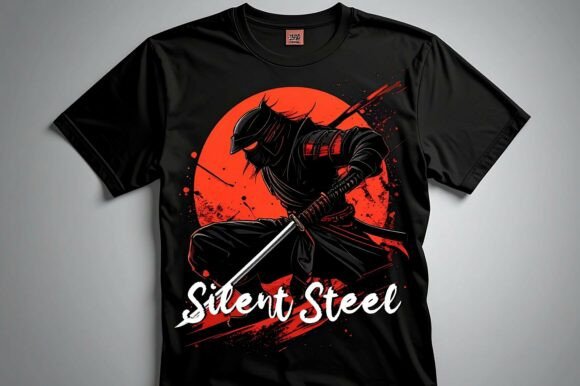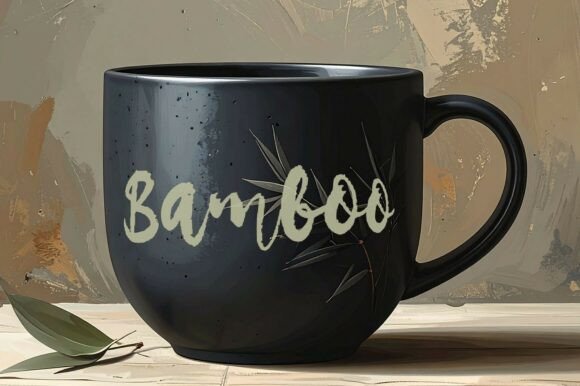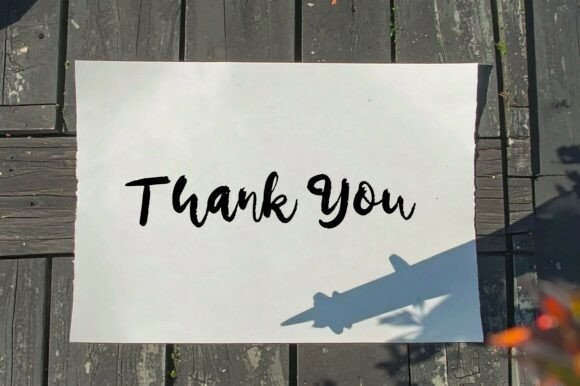
Unleash Your Creativity with Bayangan Pendekar Font
Are you looking for a font that embodies movement, strength, and a touch of rebellious spirit? Look no further than Bayangan Pendekar, an expressive and dynamic brush script font that is sure to take your designs to the next level. With its bold, energetic strokes and modern edge, this font is perfect for designers and crafters who want to add a powerful visual impact to their work.
The Inspiration Behind Bayangan Pendekar
Bayangan Pendekar is inspired by traditional Asian calligraphy, but with a modern twist. The font’s creator drew inspiration from the bold, expressive strokes of Asian calligraphy and infused it with a modern edge, making it perfect for designs that require a powerful visual impact. The result is a font that is both elegant and edgy, perfect for a wide range of design applications.
Characteristics of Bayangan Pendekar
So, what makes Bayangan Pendekar so special? Here are just a few of its key characteristics:
- Expressive and dynamic: Bayangan Pendekar is a brush script font that is full of movement and energy. Its bold, sweeping strokes are perfect for designs that require a sense of action and intensity.
- Reminiscent of traditional Asian calligraphy: With its bold, expressive strokes, Bayangan Pendekar is reminiscent of traditional Asian calligraphy. However, its modern edge sets it apart from more traditional fonts.
- Perfect for designs that require a powerful visual impact: Whether you’re designing a logo for a martial arts studio, creating graphics for a game, or designing a poster for a concert, Bayangan Pendekar is the perfect font for designs that require a powerful visual impact.
Use Cases for Bayangan Pendekar
So, what can you use Bayangan Pendekar for? The possibilities are endless, but here are a few ideas to get you started:
- Martial arts branding: If you’re designing a logo for a martial arts studio or creating branding materials for a martial arts organization, Bayangan Pendekar is the perfect font. Its bold, energetic strokes evoke a sense of strength and power, making it perfect for martial arts branding.
- Gaming graphics: If you’re creating graphics for a game, Bayangan Pendekar is a great choice. Its bold, dynamic strokes are perfect for creating eye-catching graphics that will grab players’ attention.
- Edgy apparel: If you’re designing apparel for a client who wants an edgy, rebellious look, Bayangan Pendekar is the perfect font. Its bold, expressive strokes are perfect for creating eye-catching designs that will stand out.
- Evocative poster designs: Whether you’re designing a poster for a concert, a movie, or a play, Bayangan Pendekar is a great choice. Its bold, energetic strokes are perfect for creating eye-catching posters that will grab viewers’ attention.
Why Choose Bayangan Pendekar?
So, why should you choose Bayangan Pendekar for your next design project? Here are just a few reasons:
- Adds a fierce and adventurous character to any design: With its bold, energetic strokes, Bayangan Pendekar adds a fierce and adventurous character to any design. Whether you’re designing a logo, creating graphics for a game, or designing a poster, Bayangan Pendekar is sure to make a statement.
- Perfect for designers and crafters who want to create a powerful visual impact: If you’re a designer or crafter who wants to create a powerful visual impact, Bayangan Pendekar is the perfect font. Its bold, expressive strokes are perfect for designs that require a sense of action and intensity.
- Easy to use: Bayangan Pendekar is easy to use, even for designers who are new to brush script fonts. Its intuitive design makes it easy to get started and create stunning designs.
In conclusion, Bayangan Pendekar is an expressive and dynamic brush script font that is perfect for designers and crafters who want to add a powerful visual impact to their work. With its bold, energetic strokes and modern edge, this font is sure to make a statement. Whether you’re designing a logo for a martial arts studio, creating graphics for a game, or designing a poster for a concert, Bayangan Pendekar is the perfect choice. So why wait? Download Bayangan Pendekar today and unleash your creativity!